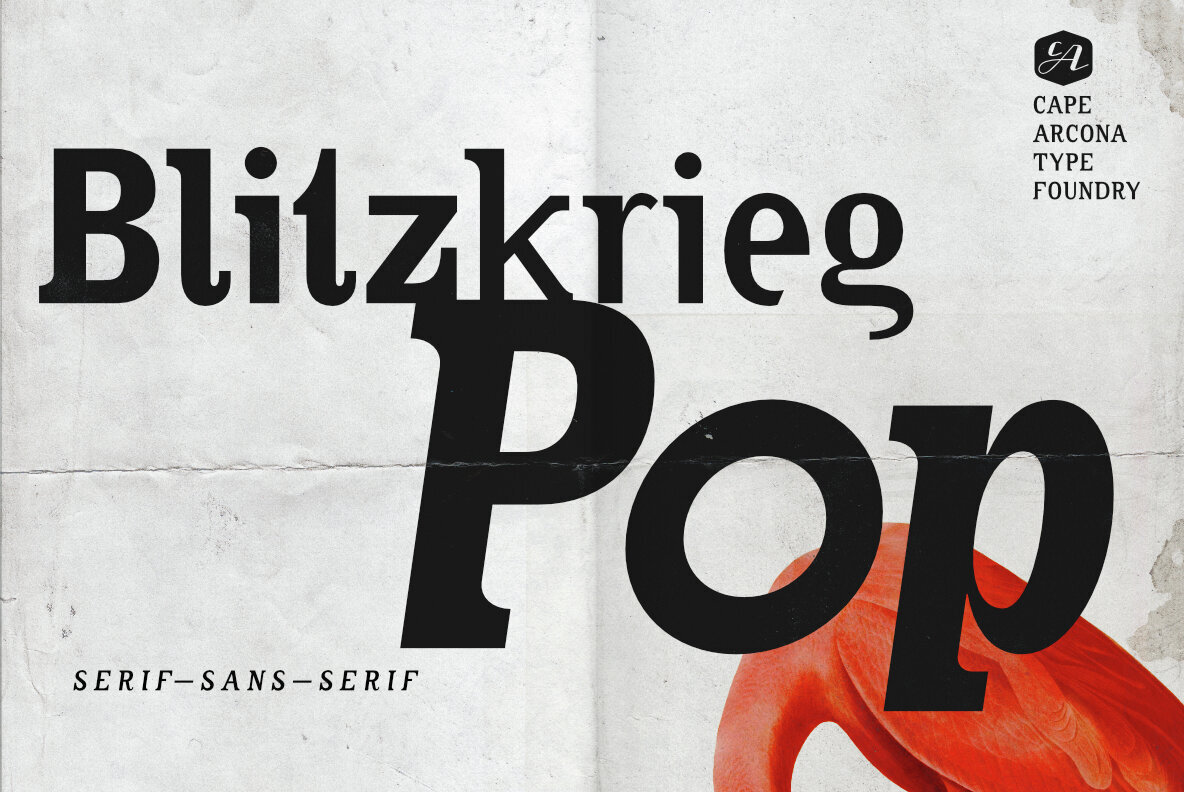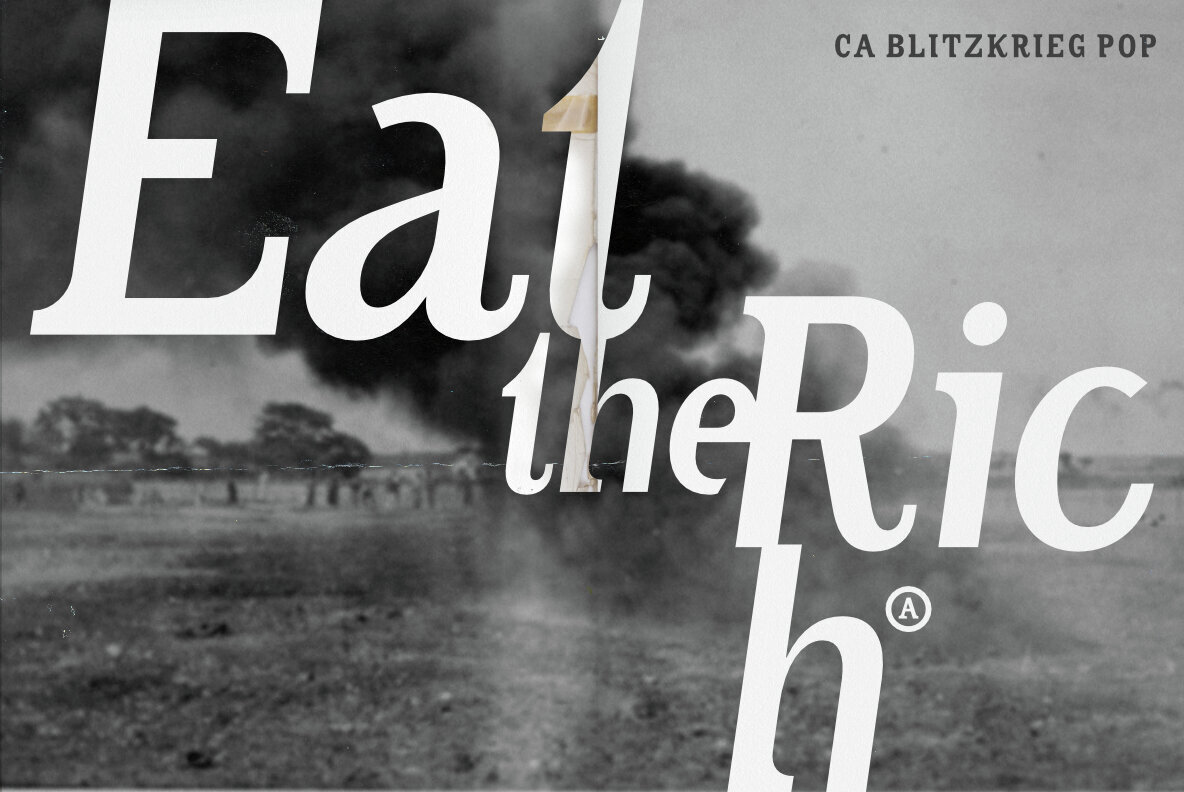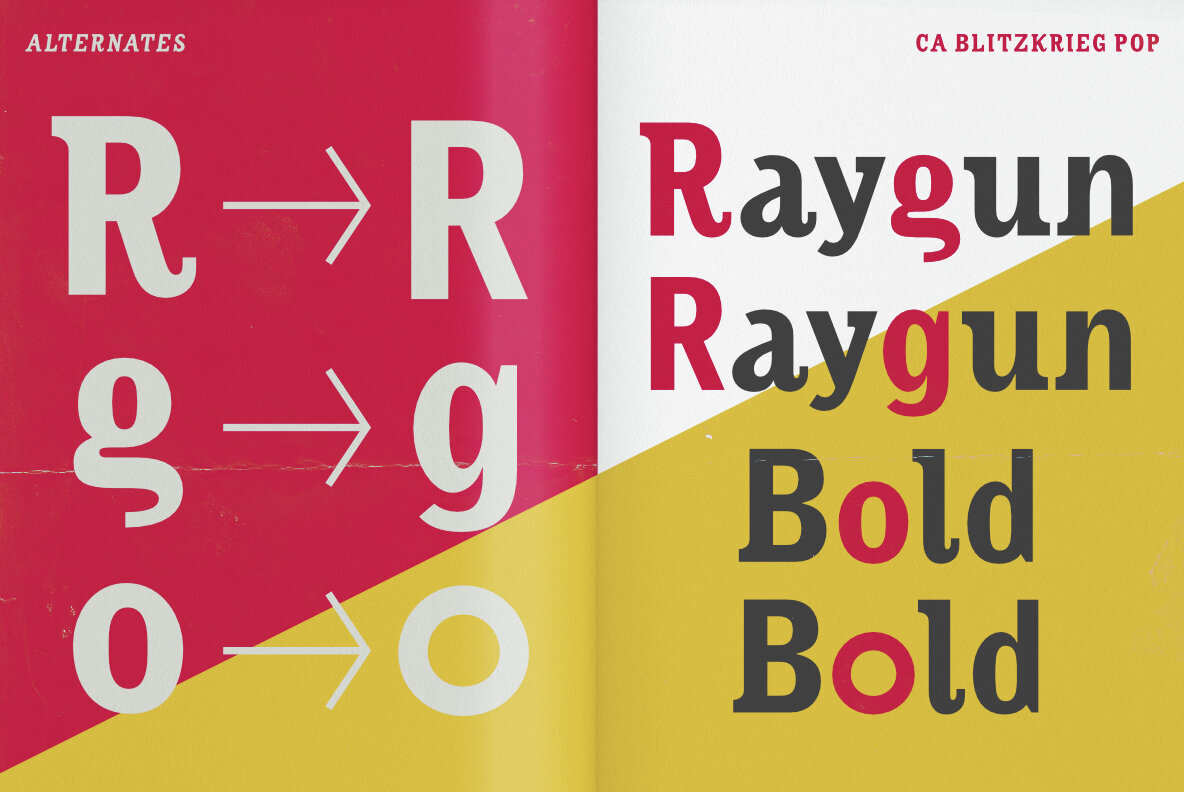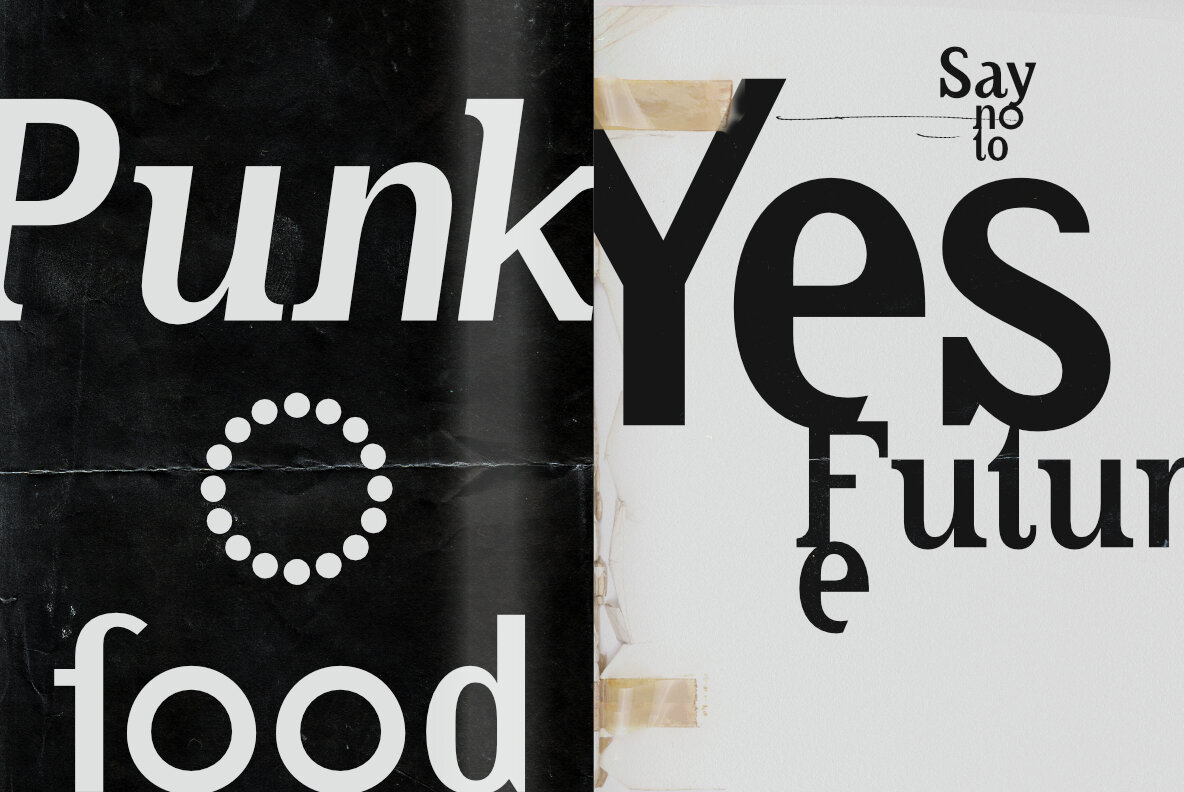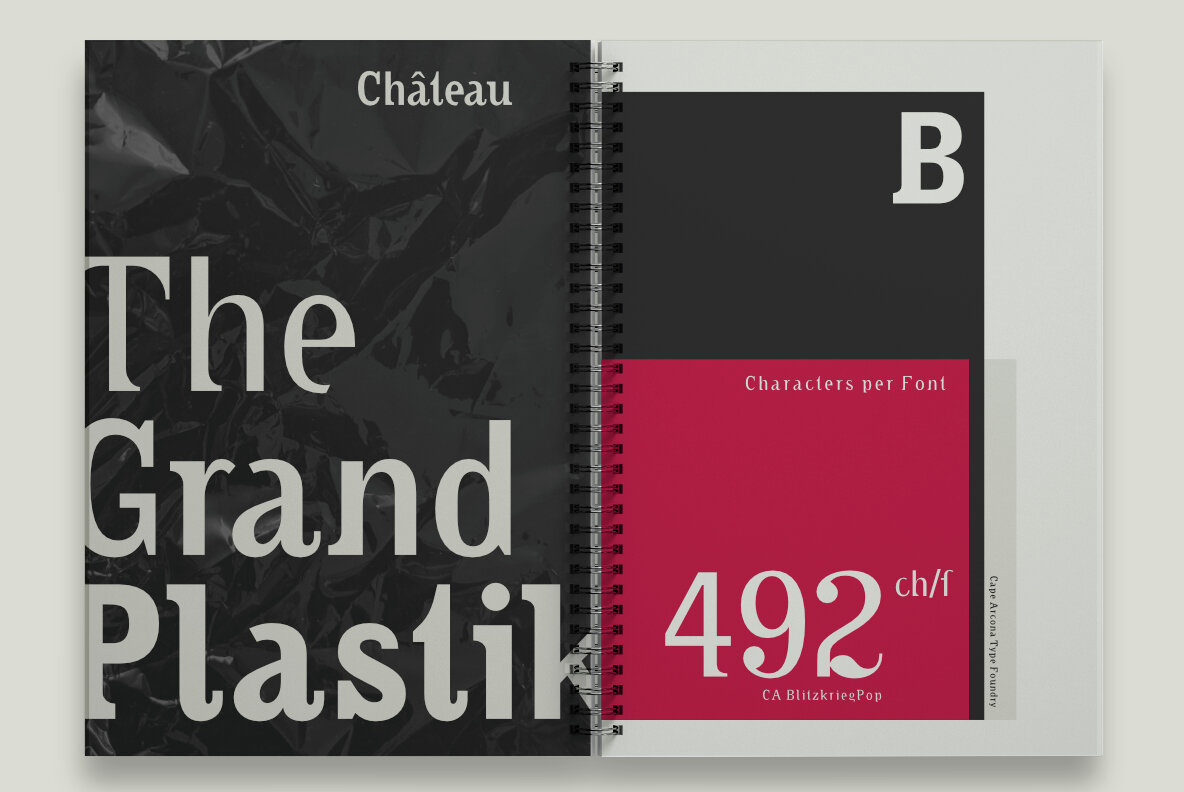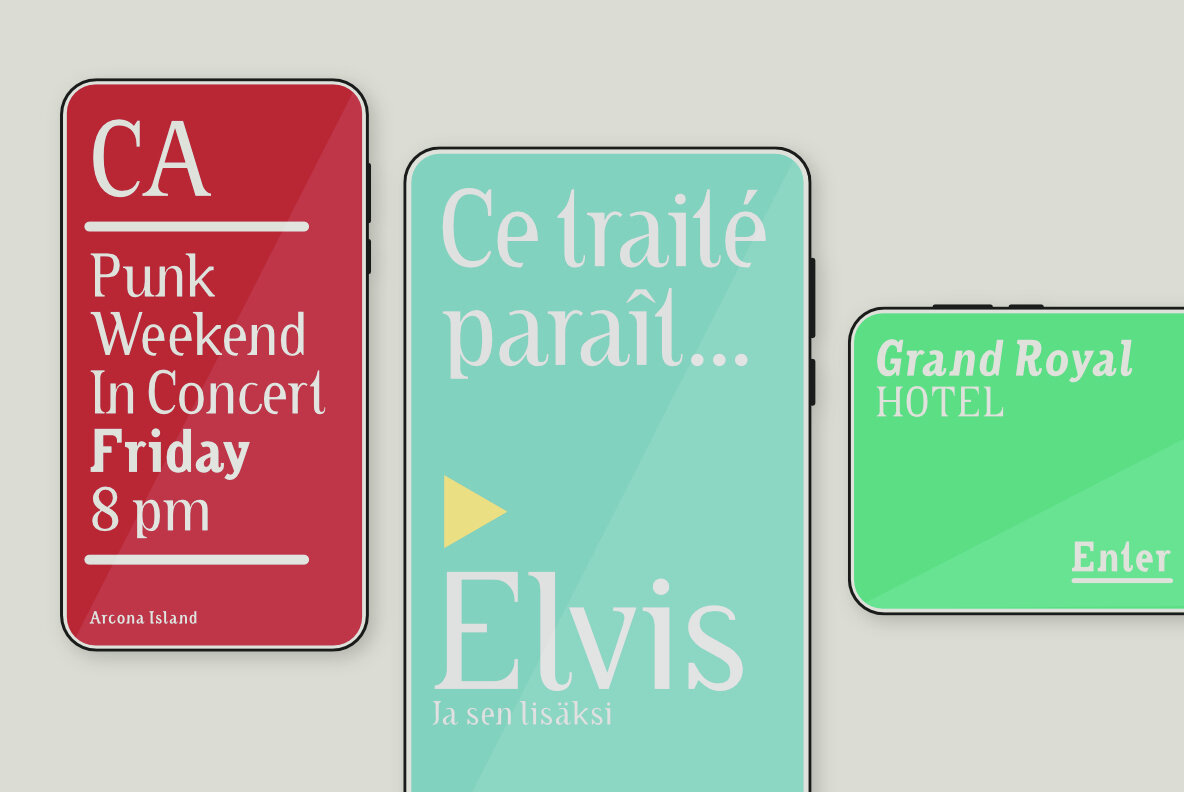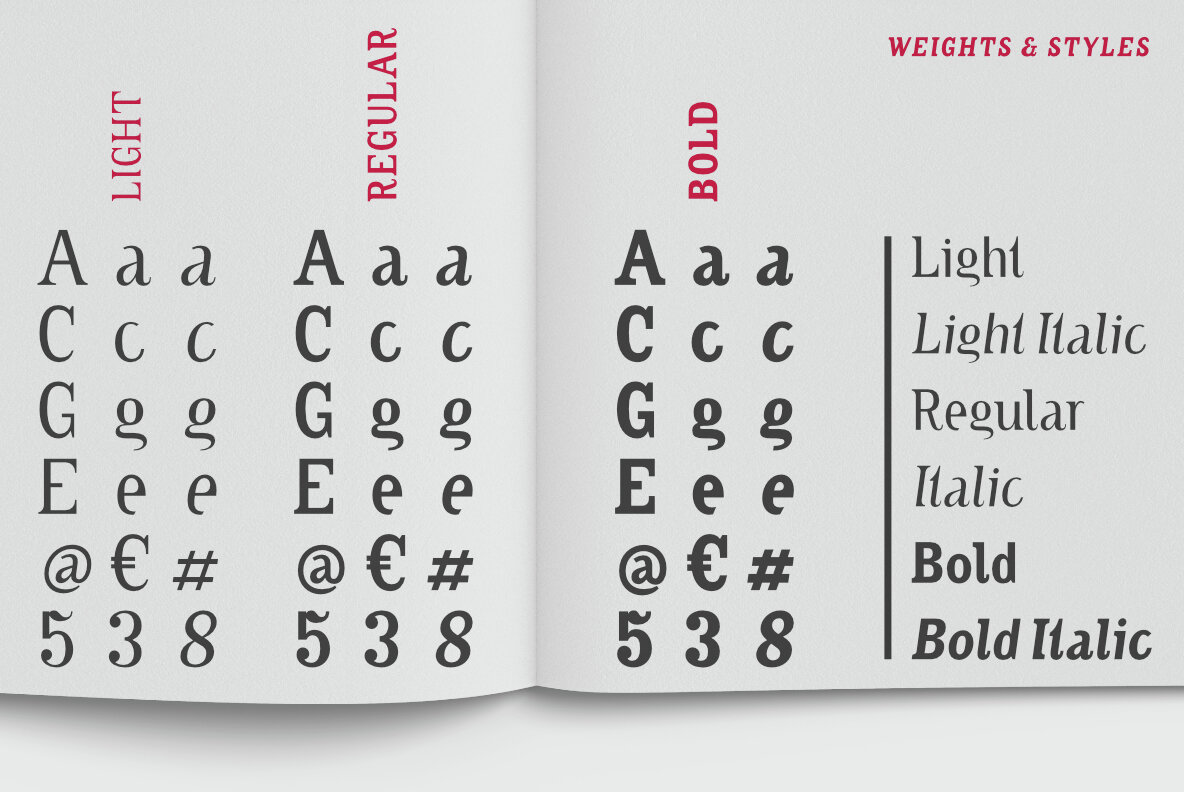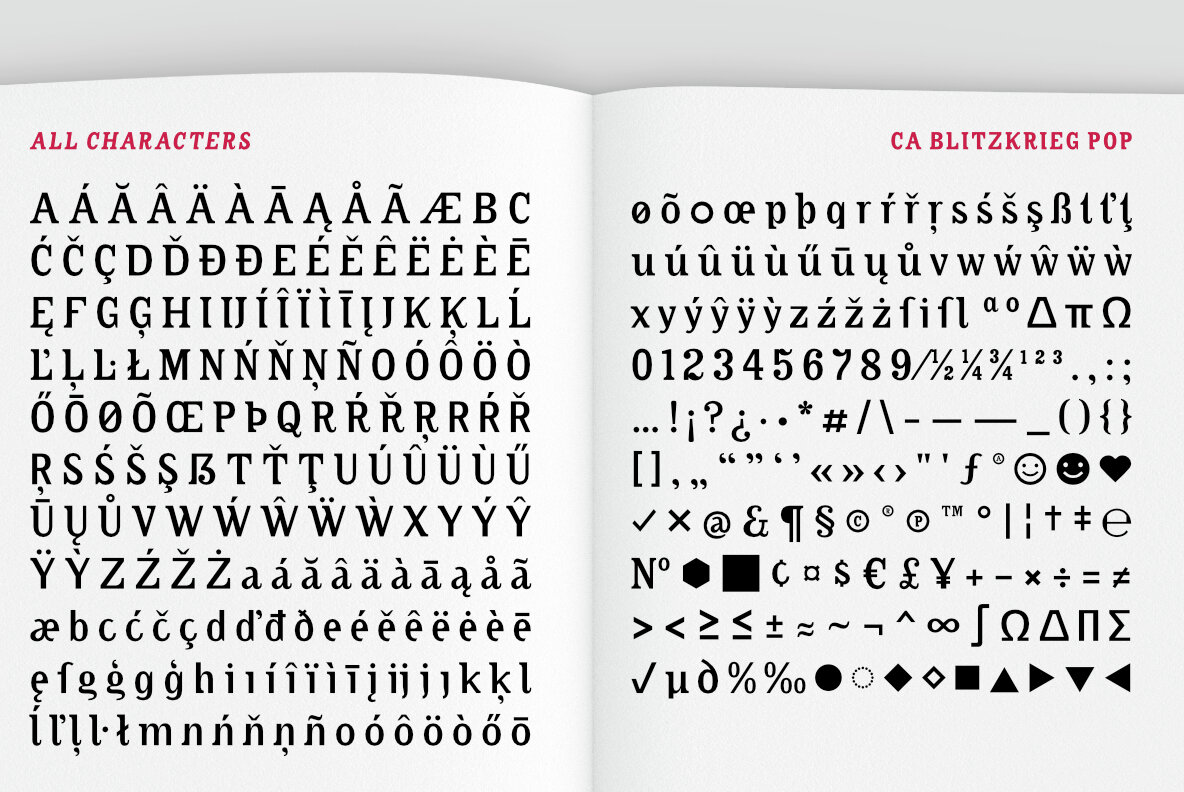
CA Blitzkrieg Pop Font
CA Blitzkrieg Pop is a dynamic fusion of serif and sans-serif styles, fueled by the raw energy of the punk rock era with a dash of Raygun-inspired flair. Emerging from the ’90s vibe—think grunge typography, edgy music mags, and rebellious attitude—it’s loud, bold, and unapologetically expressive. And despite its name, it’s not linked to that classic Ramones track. Combining the crispness of sans with the personality of serif, CA Blitzkrieg Pop is perfect for headlines, logos, and short, impactful text that demands attention. It comes in Light, Regular, and Bold weights, each with matching italics, plus a Variable Font option for smooth weight adjustments. A small set of alternate characters adds a bit of extra character, too.